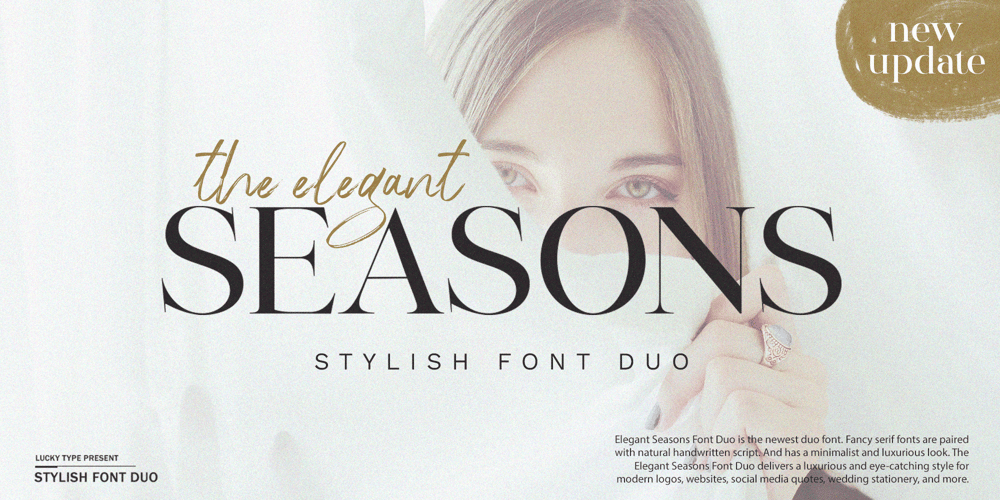
Elegant Season Font Family was designed by Muhammad Fajar and published by Lucky Type. Elegant Season contains 3 styles and family package options. The Elegant Seasons Font Duo is the newest font duo to welcome the year 2023. A luxurious serif font paired with naturally handwritten script. It also has a minimalist and luxurious appearance. The Elegant Seasons Font Duo brings a luxurious and eye-catching style to modern logos, websites, social media quotes, wedding stationery and more.Elegant Seasons Font Duo has been updated and is now available in lowercase for serif fonts and a clean version for script fonts.Thank you very much.